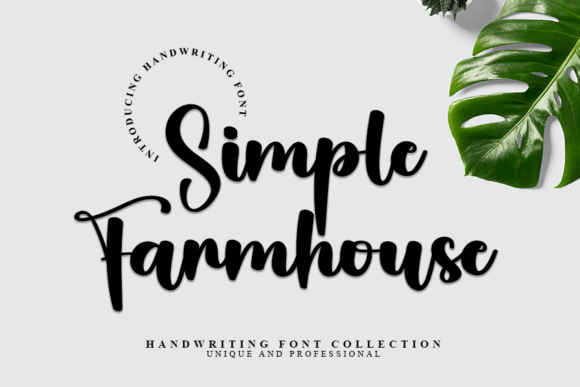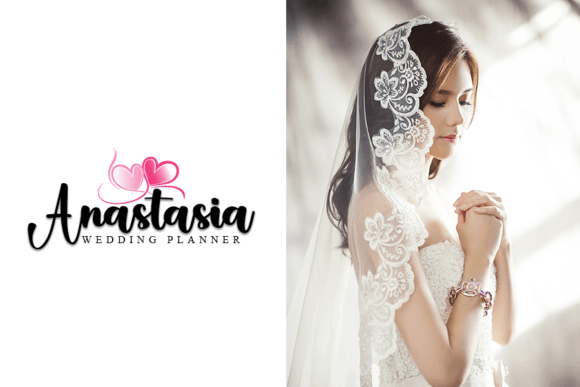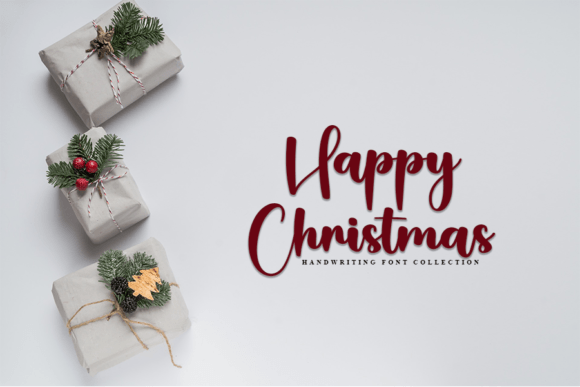
About Simple Farmhouse Script Font
Simple Farmhouse Script Font is a bold and elegant handwritten typeface created to bring charm and personality to your creative projects. With confident strokes and smooth curves, it blends the authenticity of handwriting with the sophistication of modern design. Because of its versatile nature, Simple Farmhouse Script Font is perfect for crafts, greeting cards, invitations, digital designs, and stylish branding projects.
A Bold Typeface with Distinct Personality
Handwritten fonts often stand out for their unique character, and Simple Farmhouse ScriptFont embodies that quality. Its strong strokes make it ideal for designers who want to emphasize elegance while keeping projects approachable. In addition, the font maintains clarity and legibility across various sizes, ensuring that your message always shines.
Perfect Typeface for Greeting Cards and Invitations
Event stationery and personal designs benefit greatly from Simple Farmhouse ScriptFont. For example, it adds charm to wedding invitations, birthday cards, and thank-you notes. Moreover, it enhances event flyers, seasonal greetings, and celebration posters, ensuring each design feels warm and memorable.
A Handwritten Typeface for Branding and Packaging
Businesses and creatives looking to build identity will also find Simple Farmhouse ScriptFont valuable. It works beautifully for boutique logos, product packaging, and advertisements. Furthermore, it adds sophistication to social media graphics, blogs, and website headers. When paired with minimalist sans serif fonts, it creates a polished and modern balance.
Flexible Across Print and Digital Media
Another strength of Simple Farmhouse ScriptFont is its adaptability. In print, it elevates posters, magazines, brochures, and merchandise designs. Digitally, it enhances websites, e-commerce stores, and social media branding. Since it scales seamlessly from small stickers to large banners, it remains reliable across diverse applications.